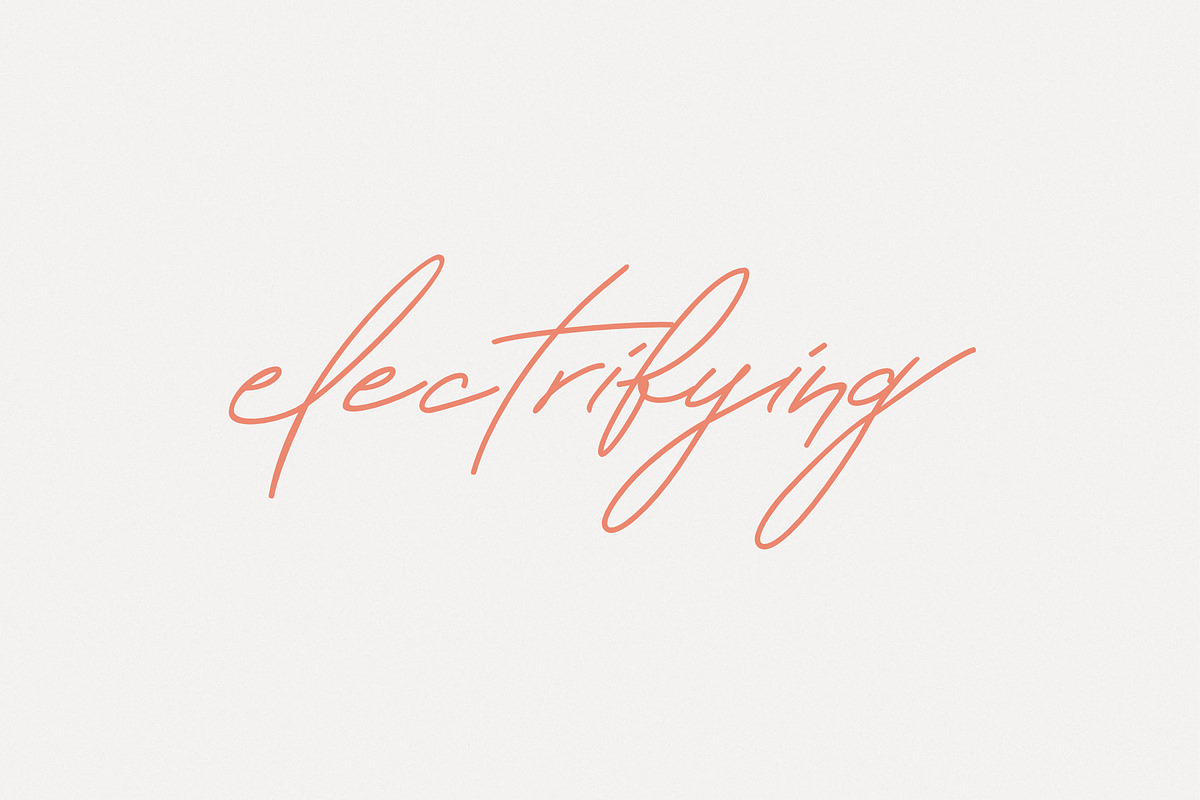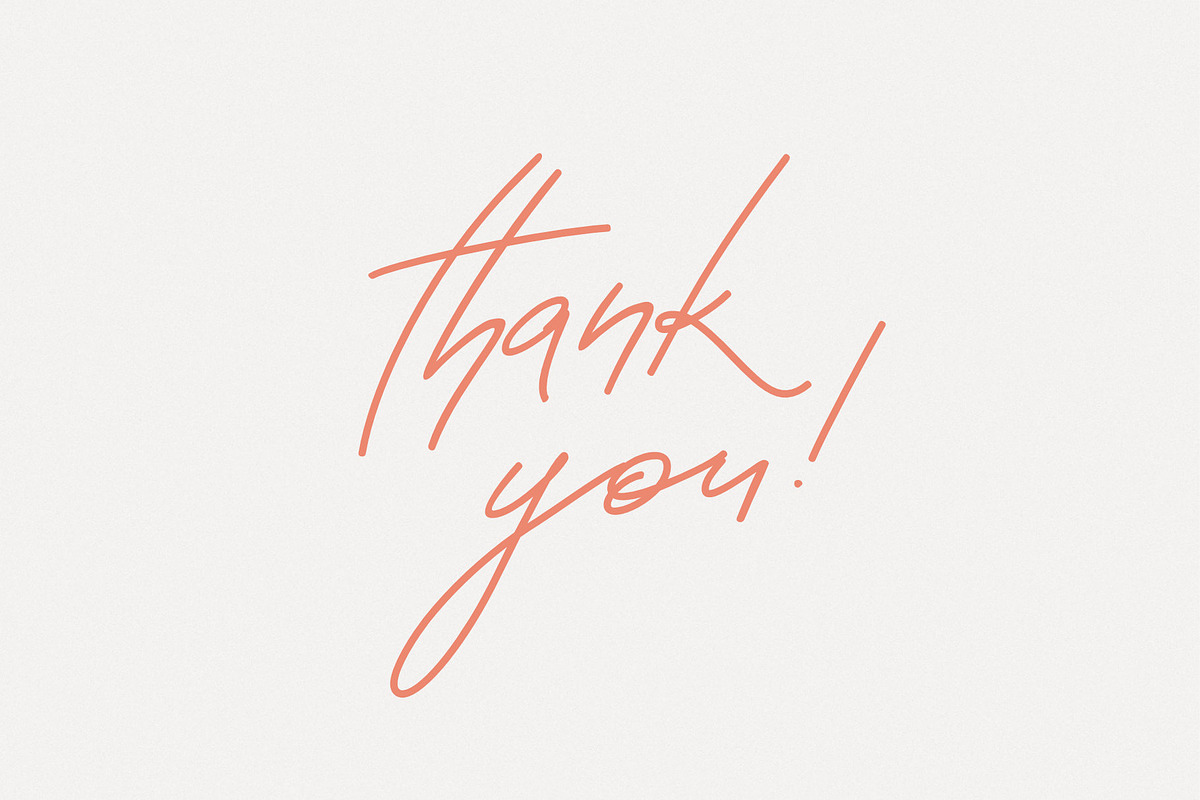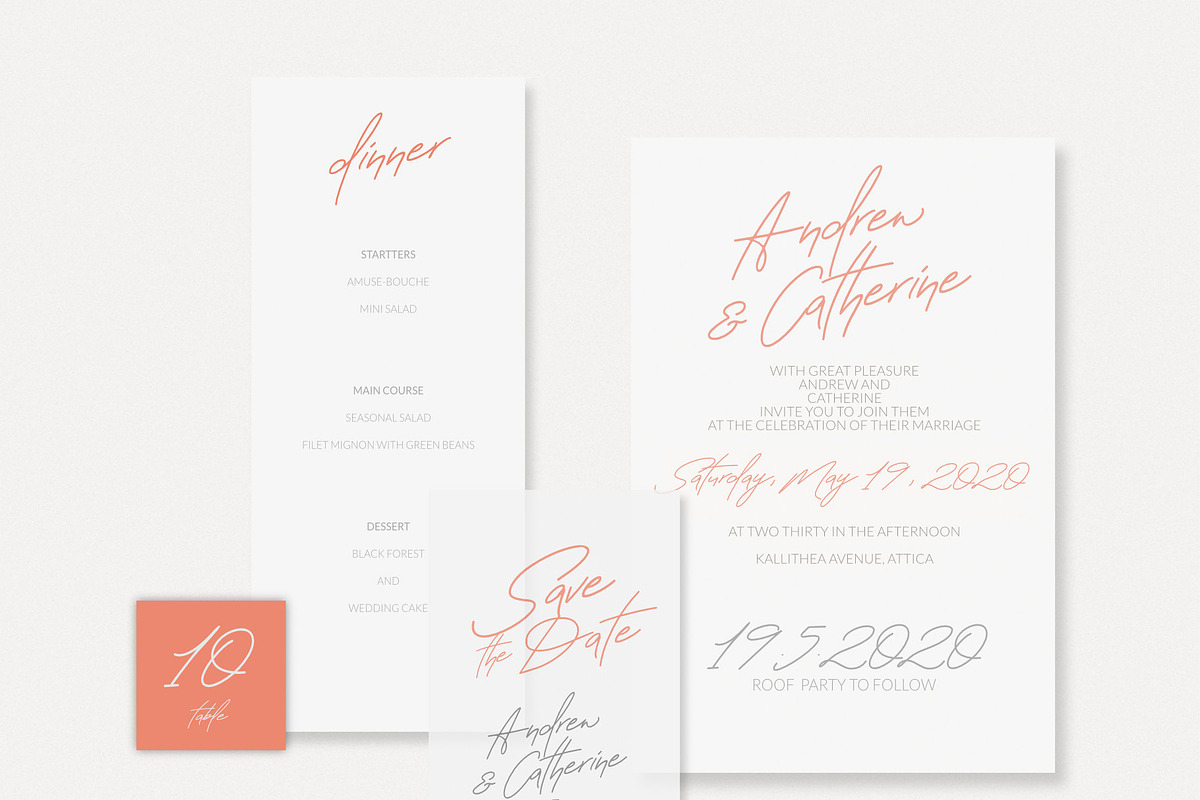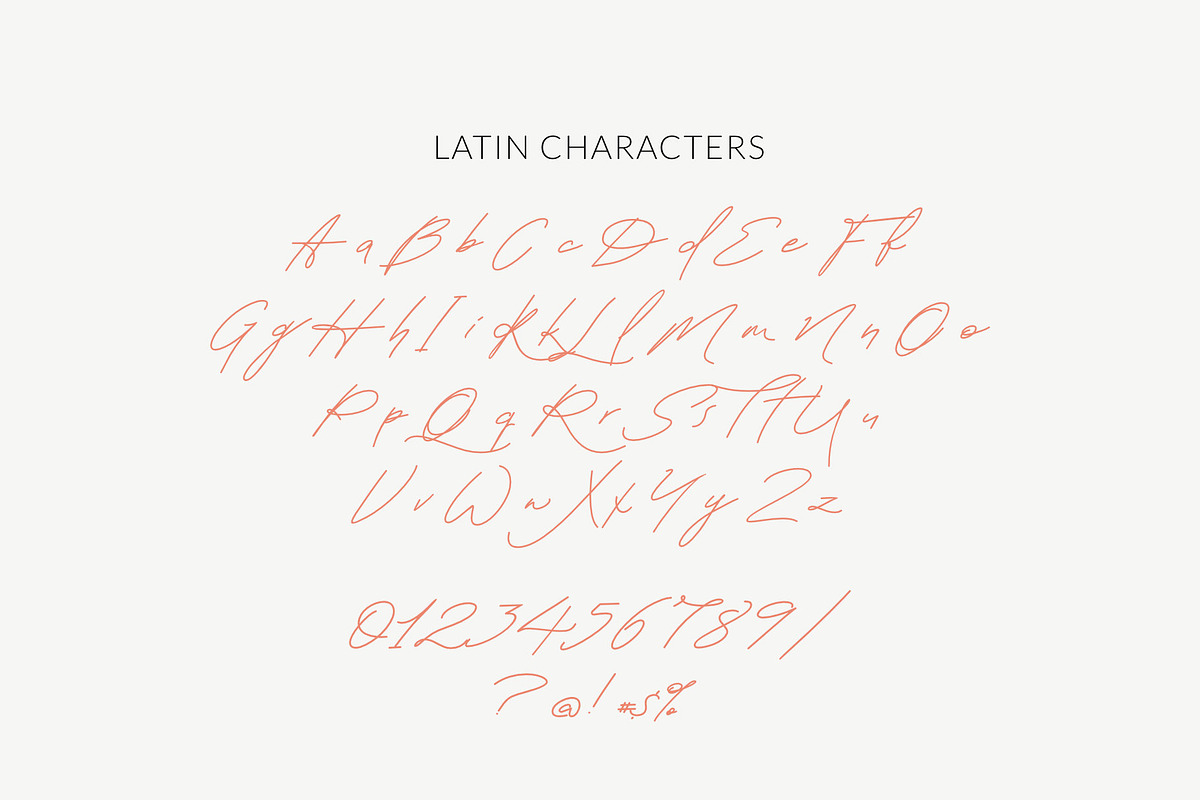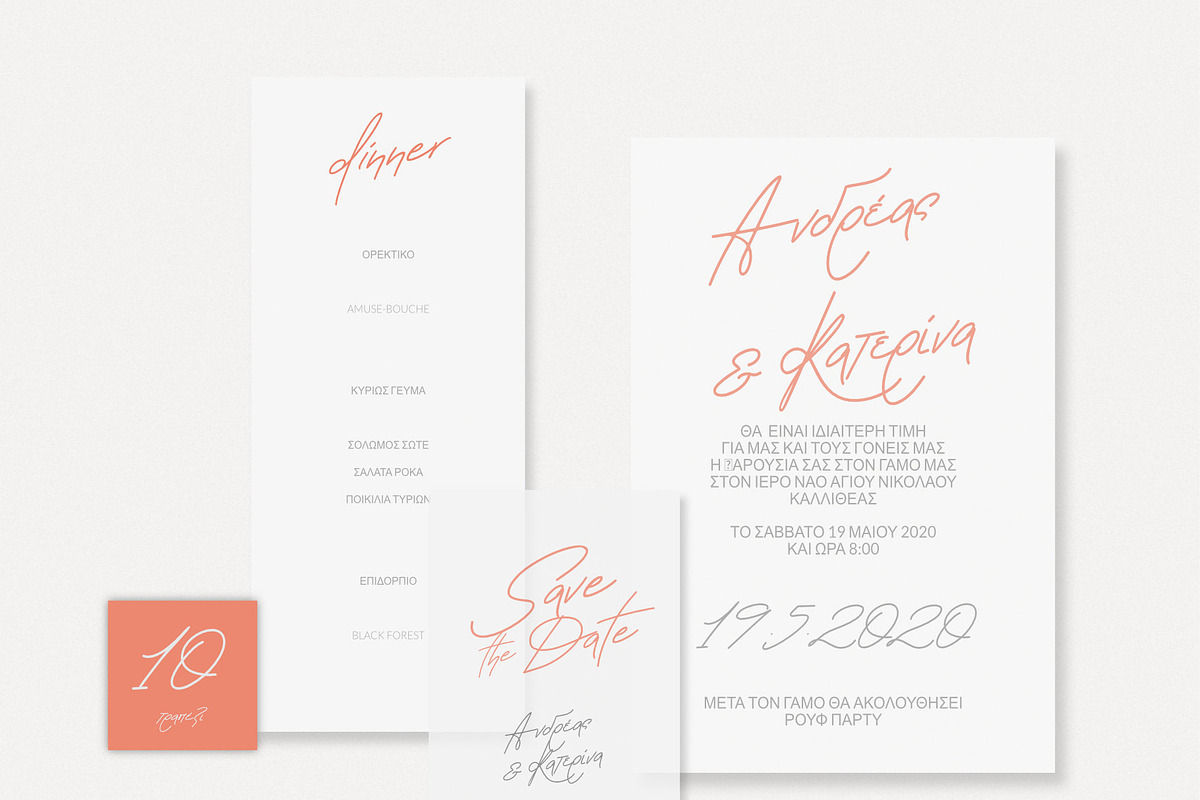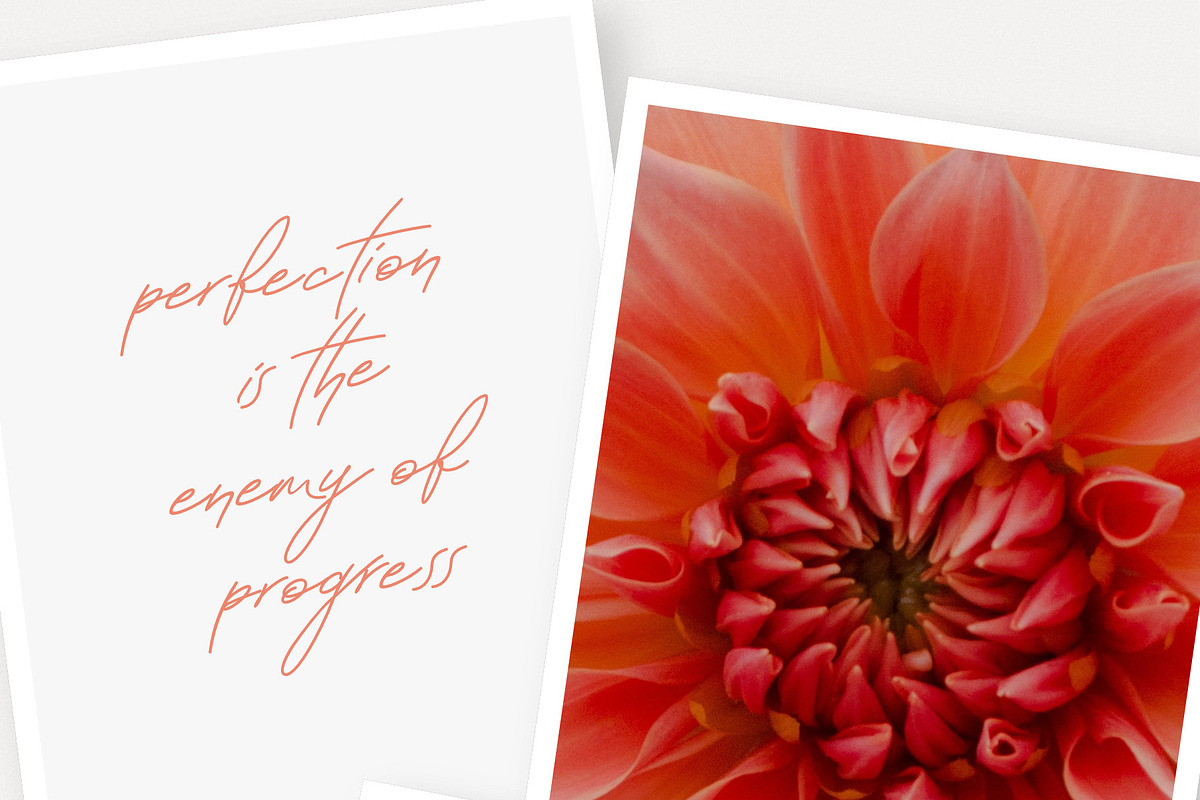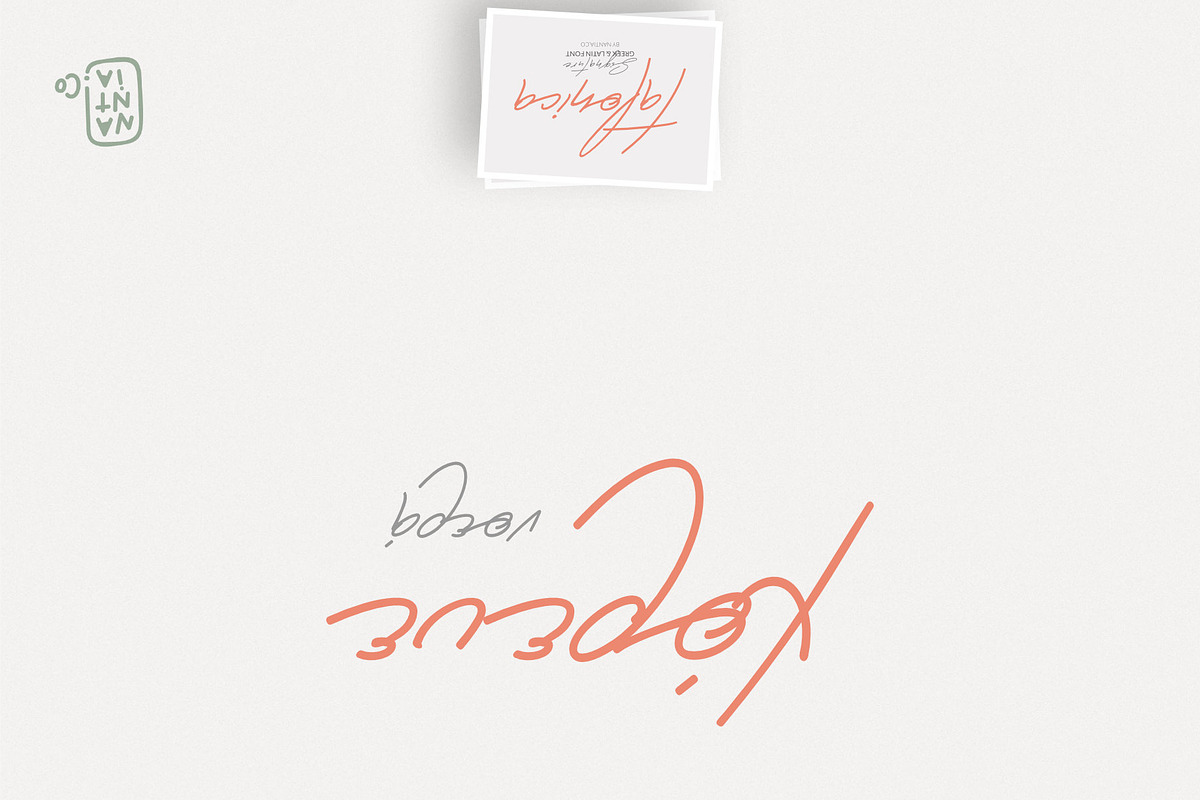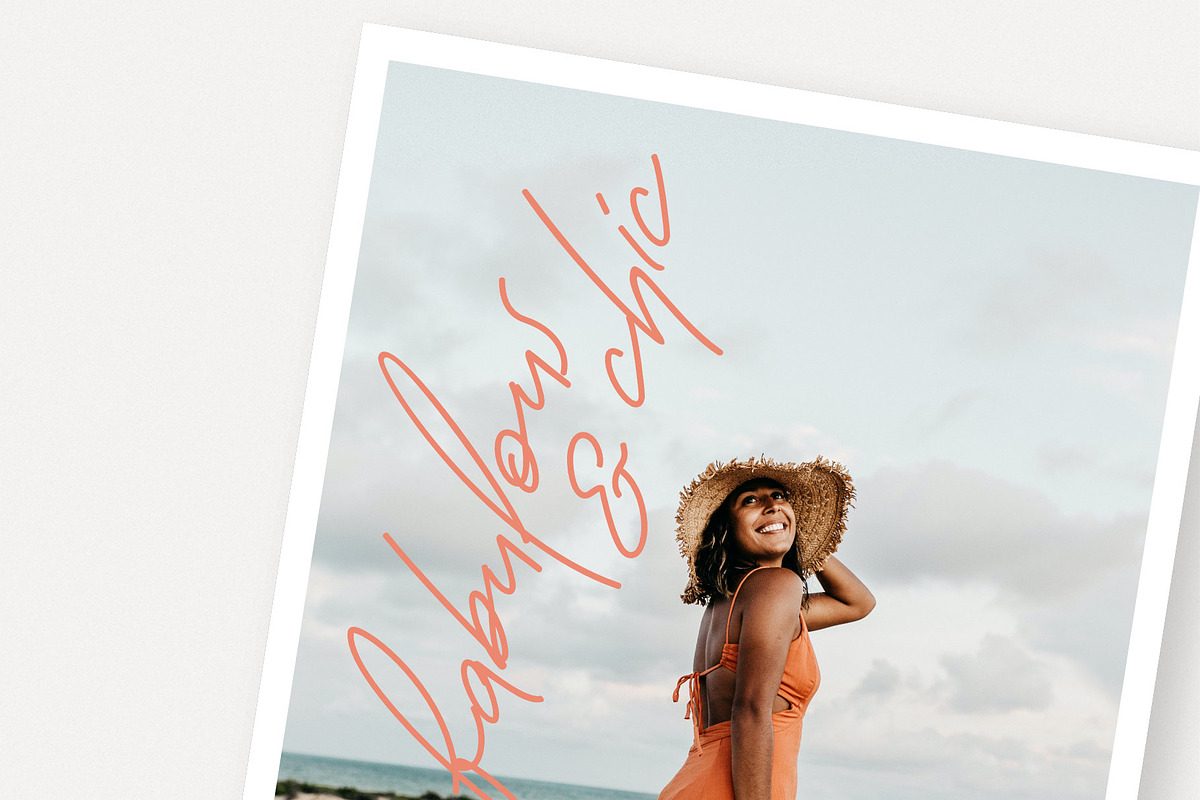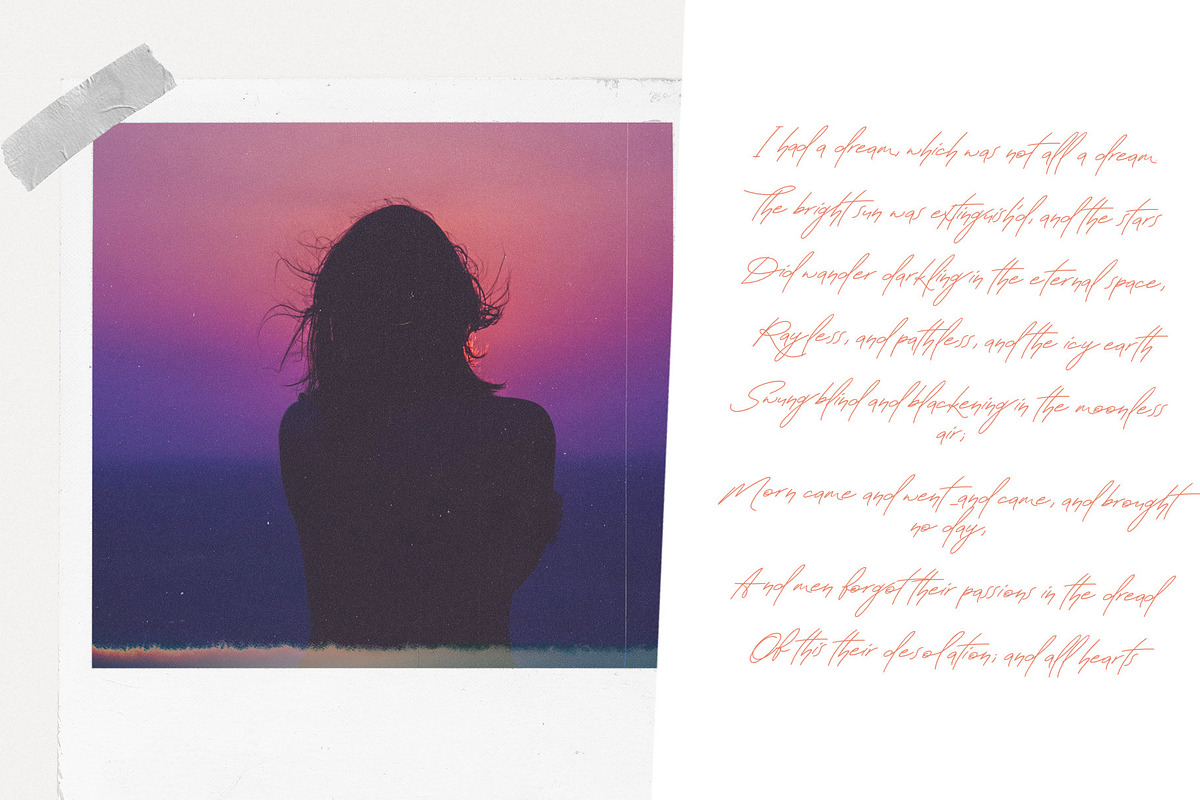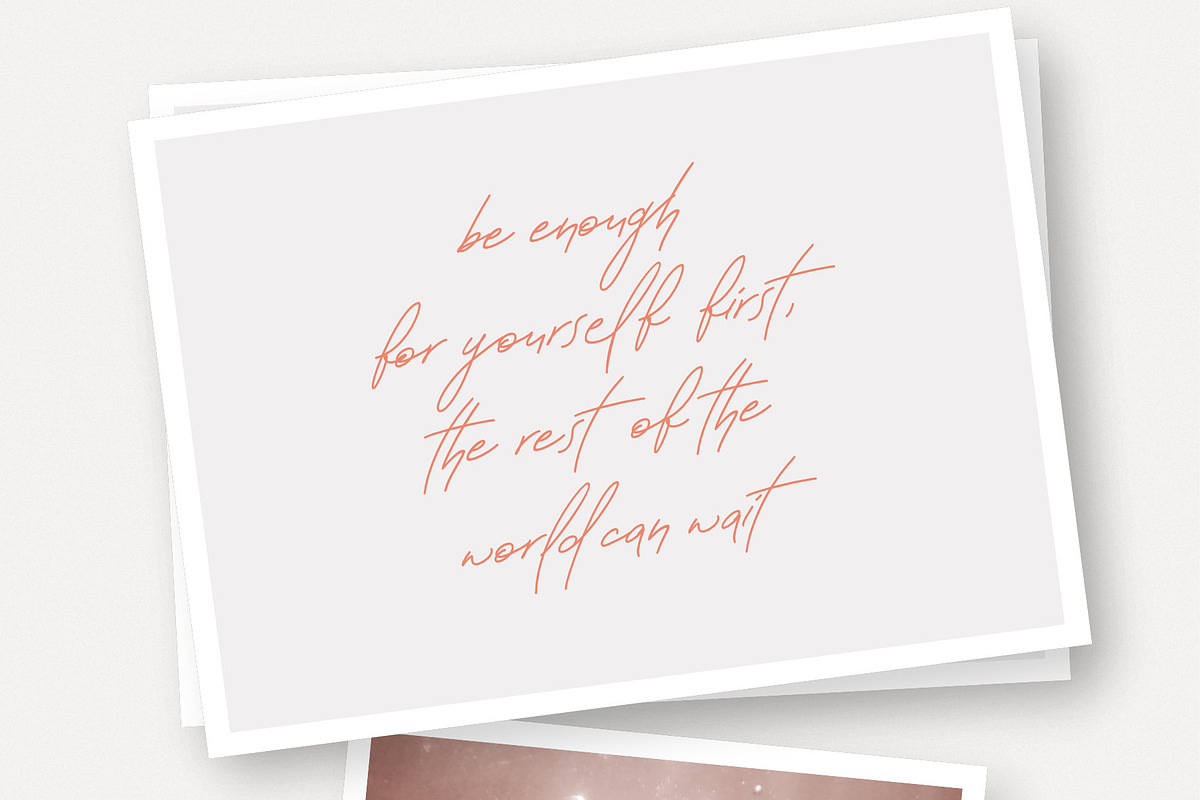
Greek Font Talonica
TALONICA — GREEK SIGNATURE FONT
A flowing handwritten signature font with Greek, Latin, multilingual characters, and an effortlessly natural feel.
Meet Talonica, a modern signature font designed to bring the warmth and personality of hand lettering into your creative projects.
With its fluid strokes and organic handwritten character, Talonica combines the elegance of a signature typeface with the versatility of a multilingual font. It includes both Greek and extended Latin characters, along with numbers, punctuation, diacritics, and support for more than 30 languages.
Whether you're creating a distinctive logo, an elegant wine label, romantic wedding stationery, or stylish social media graphics, Talonica adds a personal and naturally expressive touch.
A GREEK & MULTILINGUAL SIGNATURE FONT
Talonica was designed with both Greek and Latin alphabets, making it a versatile choice for multilingual branding and editorial projects.
Its relaxed handwritten flow works beautifully for:
Logos & branding • wine labels • packaging • wedding invitations • stationery • social media • Instagram quotes • product labels • editorial designs • posters • greeting cards • organic brands • beauty branding • lifestyle projects • and more.
Use Talonica at larger sizes for expressive headlines and logotypes, or bring its natural handwriting style into shorter passages and decorative text.
PERFECT FOR BRANDING & LOGOS
Looking for a handwritten font that feels personal without losing its polished character?
Talonica's flowing letterforms make it especially suited to logo design, brand identities, product packaging, labels, and signature-style wordmarks.
Its natural aesthetic works particularly well for brands with an organic, artisanal, elegant, romantic, or handcrafted identity.
BEAUTIFUL FOR WINE & PRODUCT PACKAGING
Talonica is a natural fit for wine branding and label design, especially for organic, boutique, artisan, and small-batch products.
Pair its handwritten character with a clean serif or sans serif font to create packaging with personality, contrast, and a contemporary handcrafted feel.
It's also a lovely choice for:
Wine labels • food packaging • cosmetics • candles • handmade products • natural products • boutique brands • artisan goods • and lifestyle packaging.
PERFECT FOR WEDDINGS & ROMANTIC DESIGNS
The soft, handwritten flow of Talonica also gives it a romantic feel, making it ideal for:
Wedding invitations • save-the-dates • menus • place cards • wedding signage • thank-you cards • romantic quotes • stationery • and personalized designs.
Talonica includes:
Greek Character Set
Extended Latin Character Set
Uppercase & lowercase characters
Diacritics
Multilingual support for 30+ languages
The combination of Greek and Latin characters makes Talonica especially useful for designers creating multilingual identities, branding projects, invitations, packaging, and social content.
LANGUAGE SUPPORT
Talonica features an extensive multilingual character set with diacritics supporting more than 30 languages, alongside its complete Greek character set.
This makes it a flexible choice for international and multilingual design projects without losing the distinctive handwritten character of the typeface.
TALONICA IS PERFECT FOR
Greek typography • signature logos • handwritten branding • wedding stationery • wine labels • product packaging • Instagram quotes • social media graphics • editorial layouts • posters • invitations • organic branding • artisan products • beauty brands • lifestyle brands • and more.
Give your words a little more personality with the natural, expressive flow of Talonica.